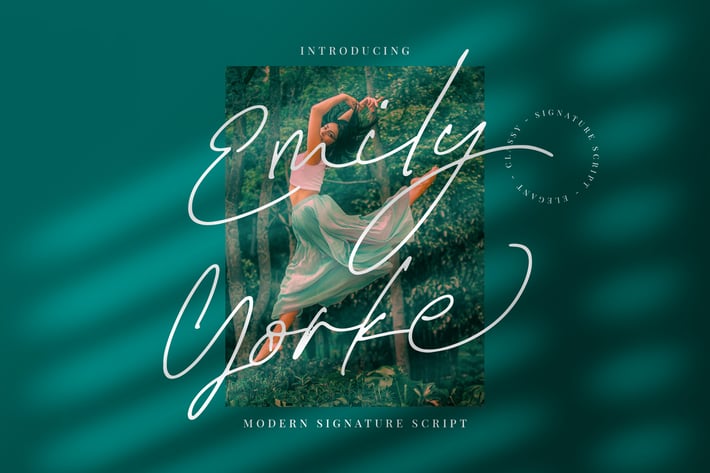
Emily Yorke - Signature Script Font
Emily Yorke is signature script Font. It has elegant, feminine, & cool. Itβs a great font for fashion, apparel projects, signature, album cover, logo, branding, magazine, social media, & advertisements, but also works great for other projects.